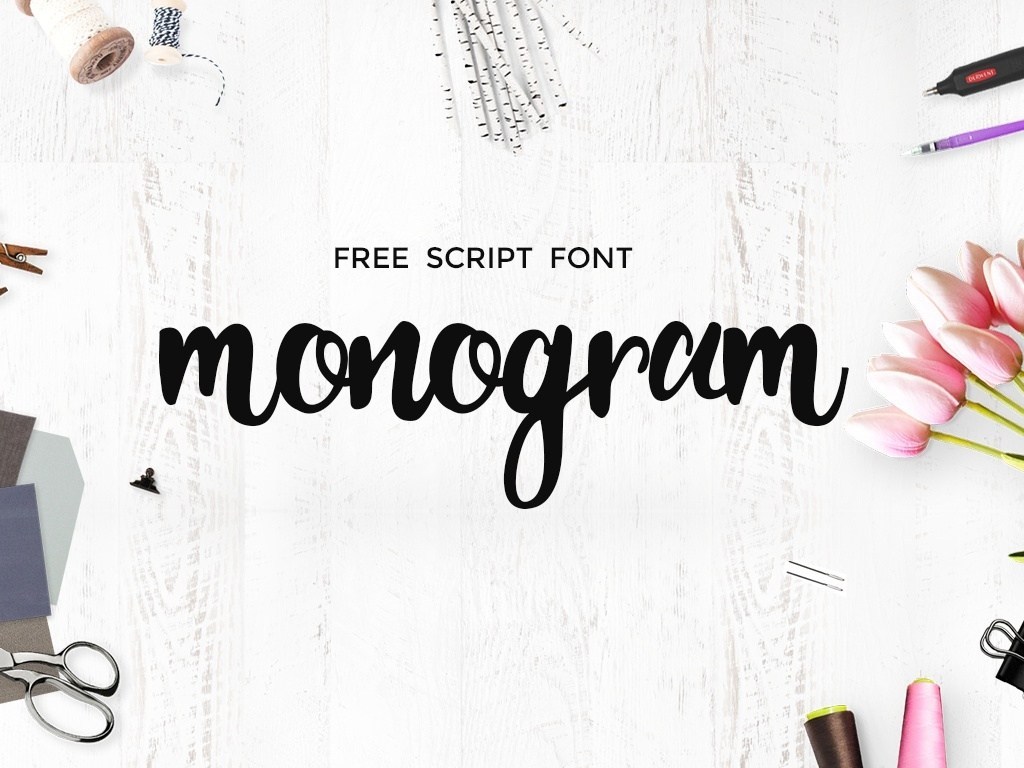
Monogram Script Font
Monogram Script Font that is famous for its work in circuits. This typeface is also famous for its use in Windows and it’s far utilized in image designing.
This contemporary free font comes with a similarity that is a handwritten-style layout like royal vintage style font that helps you to, in truth, add a completely precise search for your virtual and print format.